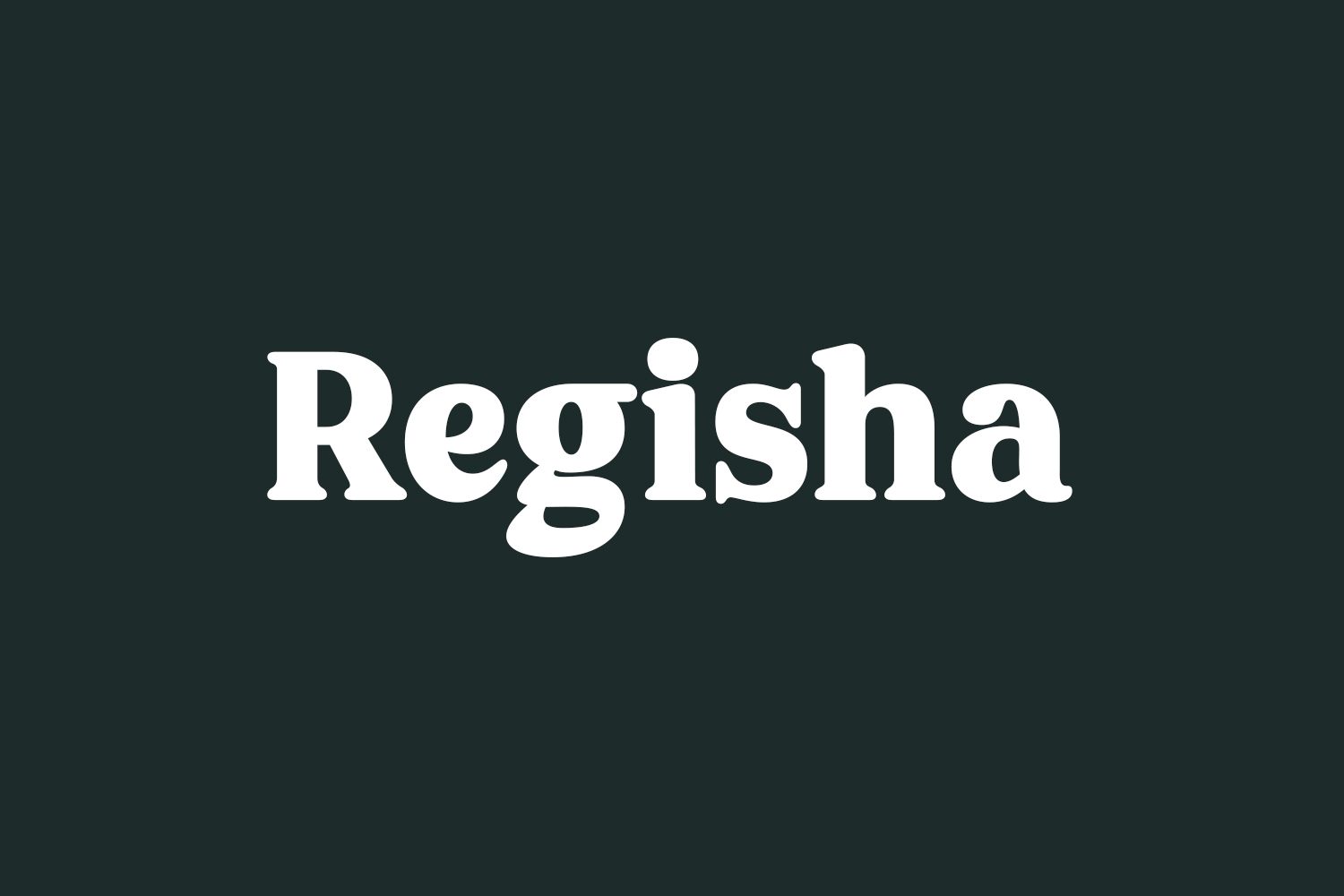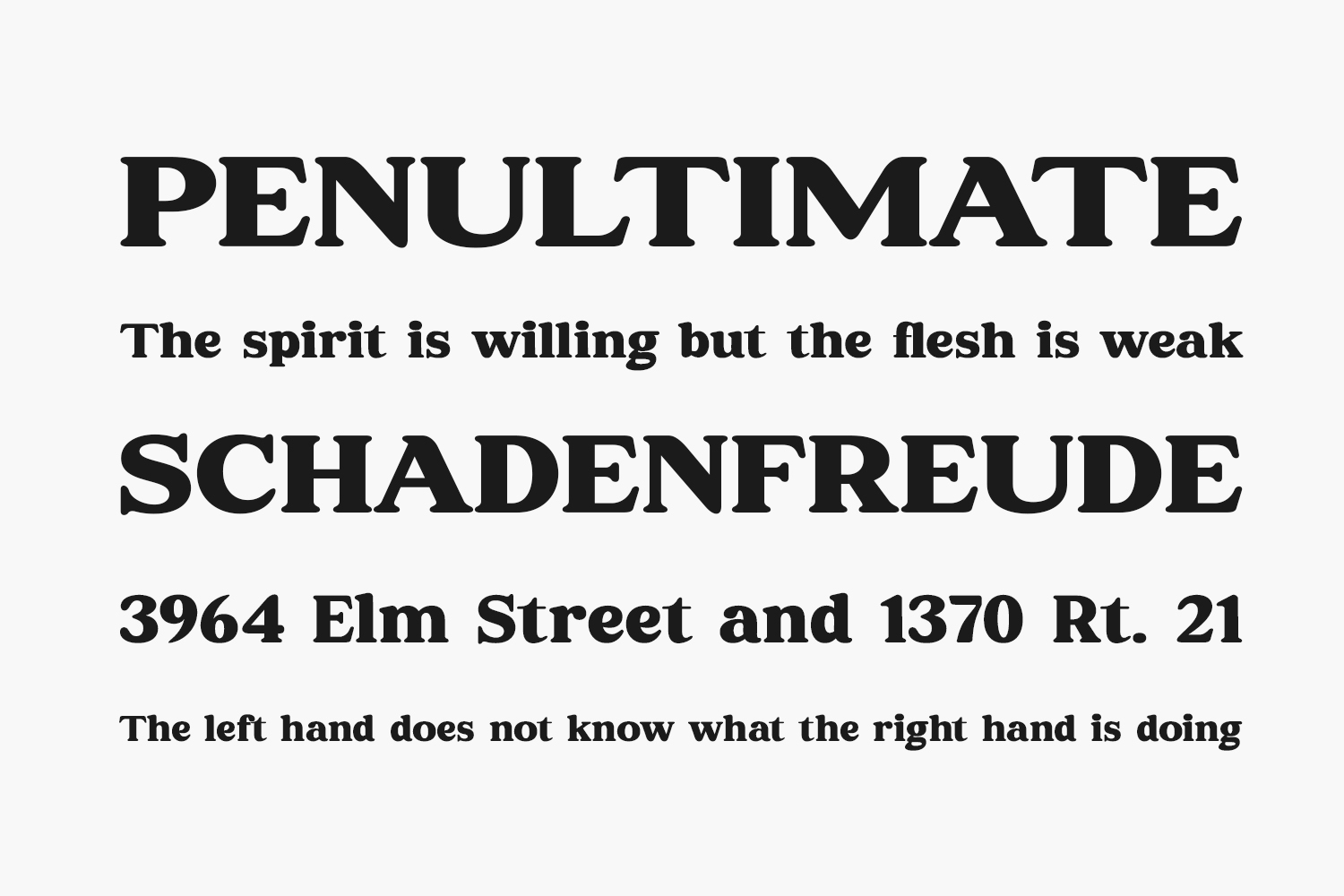
Unveil the allure of Regisha Free Font, a contemporary serif font boasting a distinctive style and sophisticated appearance. Elevate your design projects with this font’s versatility, ideal for creating elegant and luxurious logos, captivating book or movie titles, fashion brands, magazines, clothing, lettering, quotes, and beyond. Explore the endless possibilities that Regisha brings to your creative endeavors. Download the font for free if you need it for personal use or purchase the full version for commercial use.